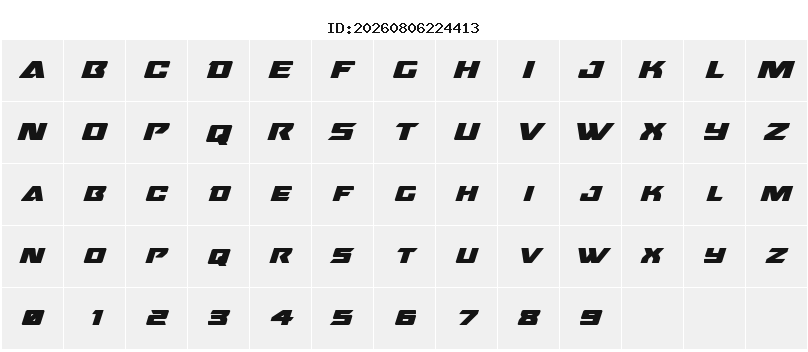
• Font Name: Oceanic Drift Bold Expanded Italic
• Font Style: Bold Expanded Italic
• Full Font Name: Oceanic Drift Bold Expanded Italic
About Oceanic Drift Bold Expanded Italic.ttf
Oceanic Drift Bold Expanded Italic.ttf is a modern, elegant sans-serif font designed for ultimate readability and visual harmony. Perfect for branding, headlines, web design, and print materials.